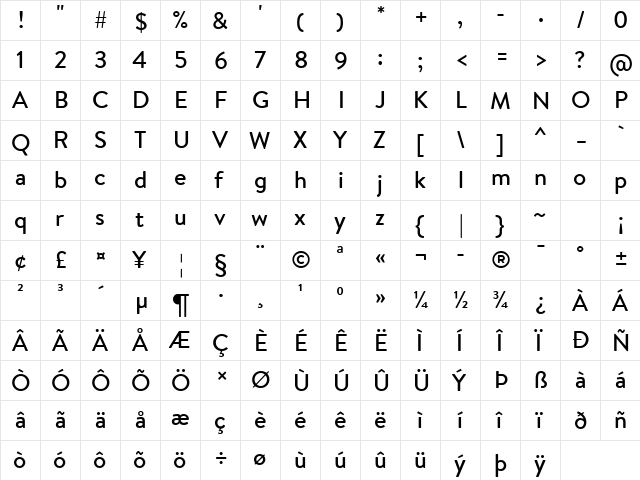
Brandon Text Medium Regular
| Foundry | Hannes von Doehren |
| Designer | Hannes von Doehren |
Design Context for Brandon Text Medium Typeface
Brandon Text Medium offers clean, dependable letterforms without strong stylistic allegiance, making it a practical choice for designers who need flexibility.
Pro Tip: Pair Brandon Text Medium with a font of contrasting weight or personality to build a more expressive typographic hierarchy.